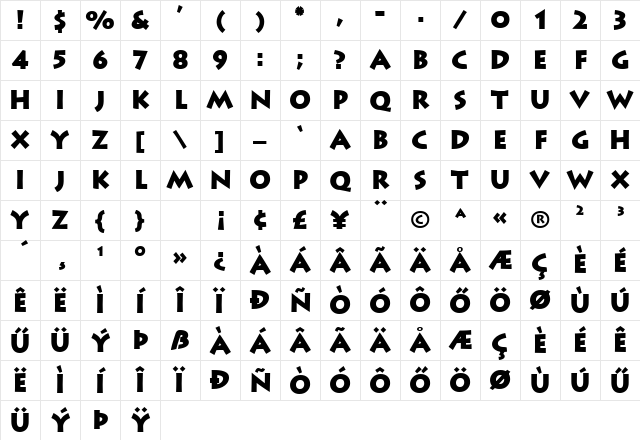
Greece Hu Black Free Font
Greece Hu Black
Greece Hu Family
Greece Hu Black
Design Context for Greece Hu
Greece Hu is a composed and adaptable typeface that performs quietly and consistently across a wide range of design contexts.